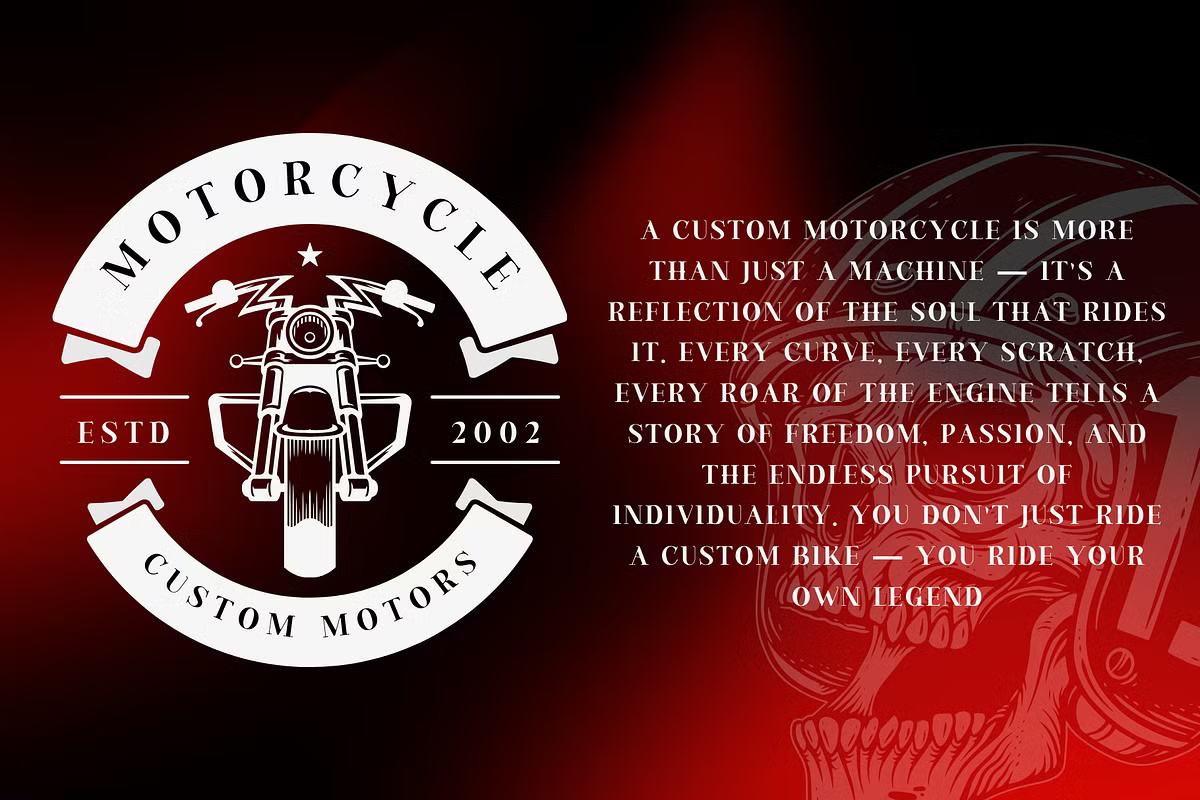
Gigrich Font
Gigrich is a sophisticated serif typeface that blends elegance with a modern touch. Its signature feature—soft, rounded edges—creates a refined yet approachable look, making it ideal for a wide range of creative projects.
Perfect for logos, magazine advertisements, invitations, branding, and more, Gigrich adds a touch of luxury and professionalism while maintaining a subtle warmth. Its harmonious mix of classic charm and smooth details ensures a timeless appeal.